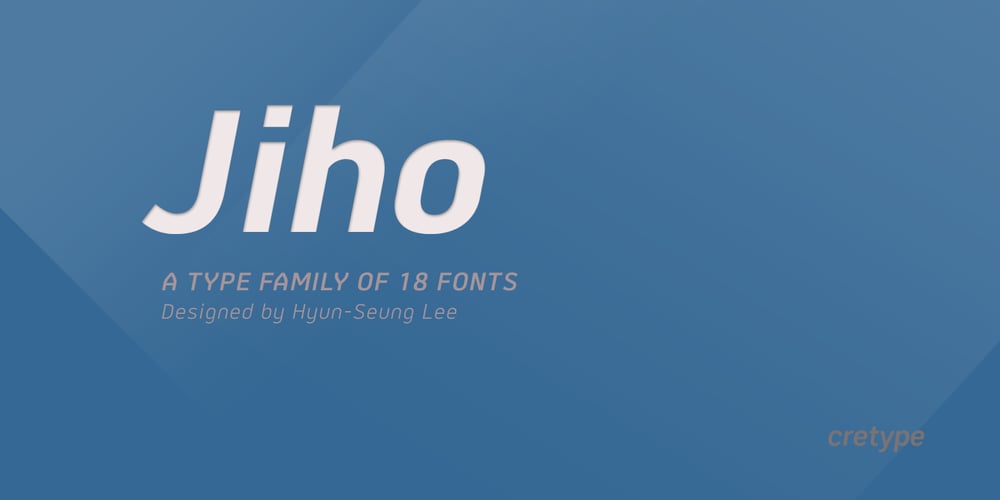
Jiho
Jiho font
Jiho Font Family was designed by Hyun-Seung Lee and published by cretype. Jiho contains 18 styles and family package options. Jiho Family is a modern sans-serif typeface that is clean, simple and highly readable. Letters in this type family are designed with minimal & modern shapes without any decorative distractions. The spaces between individual letter forms are precisely adjusted to create the perfect typesetting. Jiho is versatile type family of 18 fonts. Jiho family consists of 9 weights (Thin, ExtraLight, Light, Regular, Medium, Bold, ExtraBold, Heavy & Black) with their corresponding italics. The Open Type fonts contain complete Latin 1252, Cyrillic, Central European 1250, Turkish 1254 character sets. Each font includes proportional figures, tabular figures, numerators, denominators, superscript, scientific inferiors, subscript, fractions, old style-figures and case features. We highly recommend it for use in signage, books, web pages, screen displays, and so on.